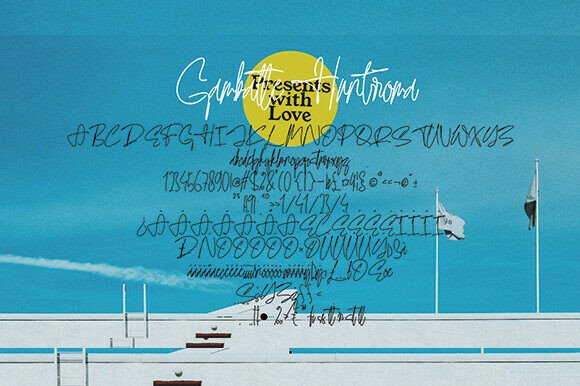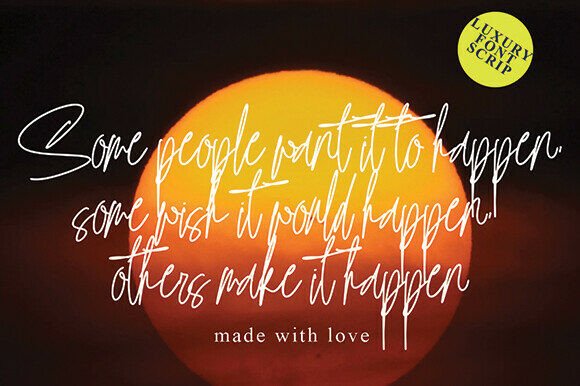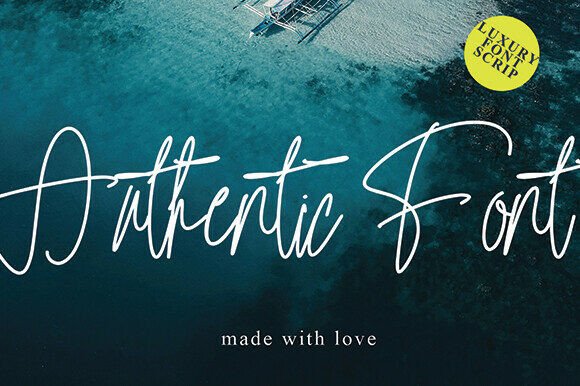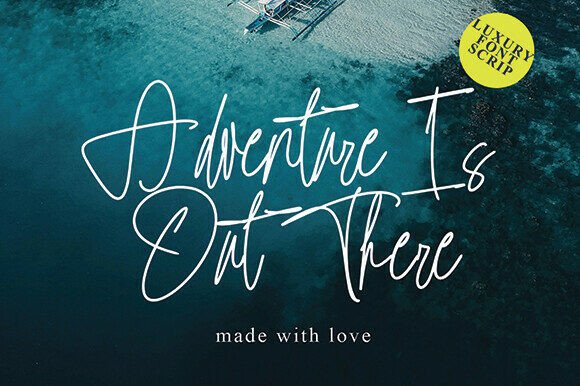
Gambatte Huntrroma Font: Elevate Your Designs with Elegance and Sophistication
In the world of typography, fonts play a crucial role in conveying the tone and personality of a design. For designers and crafters seeking a modern script font that exudes elegance and sophistication, Gambatte Huntrroma is an exceptional choice. This sleek and expressive font boasts a free-flowing handwritten style, making it perfect for a wide range of applications, from branding and wedding invitations to product packaging and editorial design.
The Characteristics of Gambatte Huntrroma
Gambatte Huntrroma’s design is characterized by its long, graceful strokes and organic flow, which give it a unique and captivating appearance. The font’s modern script style is both elegant and refined, making it suitable for designs that require a touch of sophistication. Its free-flowing handwritten style also adds a personal and human touch, making it ideal for designs that aim to connect with the audience on a more emotional level.
Uses of Gambatte Huntrroma
Gambatte Huntrroma’s versatility makes it a valuable asset for designers and crafters. Here are some of the ways you can use this beautiful font:
- Branding: Create a lasting impression with Gambatte Huntrroma’s elegant and sophisticated style. Use it for logos, business cards, and other marketing materials to establish a strong brand identity.
- Wedding Invitations: Add a touch of romance and elegance to your wedding invitations with Gambatte Huntrroma. Its beautiful script style makes it perfect for formal and informal wedding designs.
- Product Packaging: Make your product stand out with Gambatte Huntrroma’s unique and captivating style. Use it for labels, packaging, and other marketing materials to create a lasting impression.
- Editorial Design: Use Gambatte Huntrroma to add a touch of sophistication to your editorial designs, such as magazines, newspapers, and blogs.
Why Choose Gambatte Huntrroma?
With so many fonts available, why choose Gambatte Huntrroma? Here are some reasons why this font stands out:
- Unique Style: Gambatte Huntrroma’s modern script style is both elegant and refined, making it perfect for designs that require a touch of sophistication.
- Versatility: This font is suitable for a wide range of applications, from branding and wedding invitations to product packaging and editorial design.
- Easy to Read: Despite its elegant style, Gambatte Huntrroma is easy to read, making it perfect for body text and headlines.
- Customizable: Gambatte Huntrroma is highly customizable, allowing you to adjust its size, color, and style to fit your design needs.
Tips for Using Gambatte Huntrroma
To get the most out of Gambatte Huntrroma, here are some tips to keep in mind:
- Use it Sparingly: While Gambatte Huntrroma is a beautiful font, it’s best to use it sparingly to avoid overwhelming the design. Use it for headlines, titles, and other key elements.
- Pair it with Other Fonts: Gambatte Huntrroma pairs well with other fonts, especially sans-serif fonts. Experiment with different font combinations to find the perfect match.
- Adjust the Size and Color: Adjust the size and color of Gambatte Huntrroma to fit your design needs. Use a larger size for headlines and a smaller size for body text.
Gambatte Huntrroma is a sleek and expressive modern script font that offers elegance and sophistication for a wide range of design applications. Its unique style, versatility, and ease of use make it a valuable asset for designers and crafters. By following the tips outlined above, you can get the most out of Gambatte Huntrroma and elevate your designs to new heights.